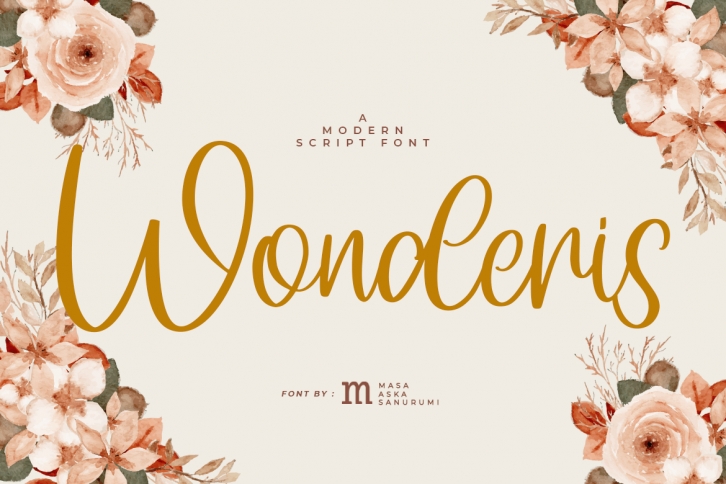
Wonderis is an organic and gorgeous script font, defined by simplicity and style. Whether you’re looking for fonts for Instagram or calligraphy scripts for DIY projects, this font will turn any creative idea into a true piece of art!